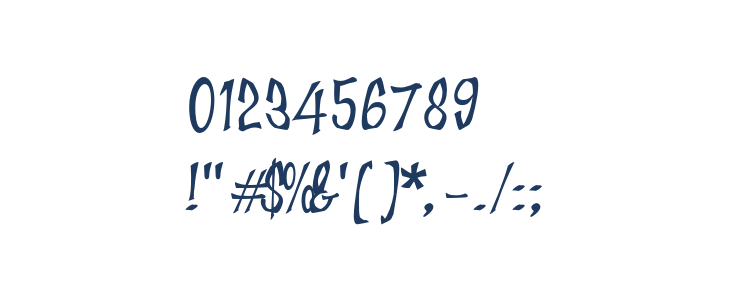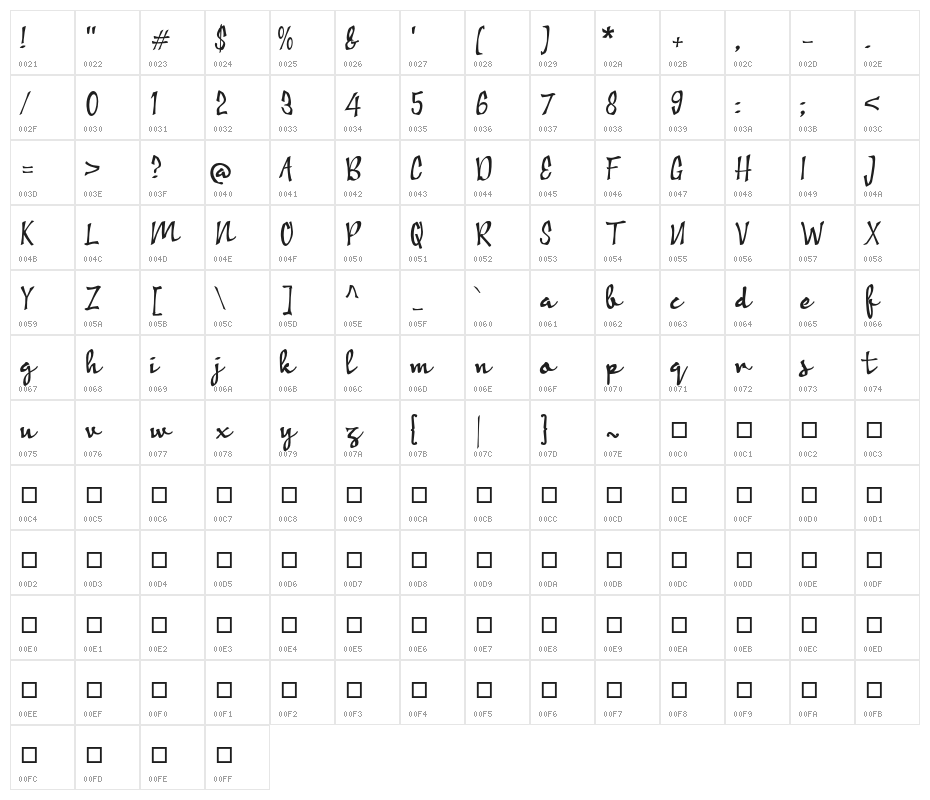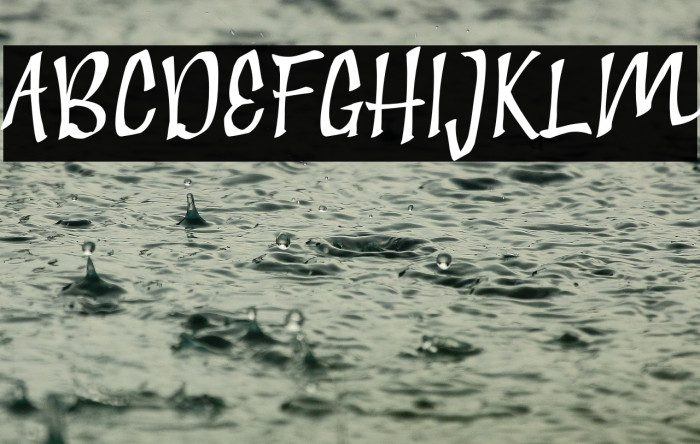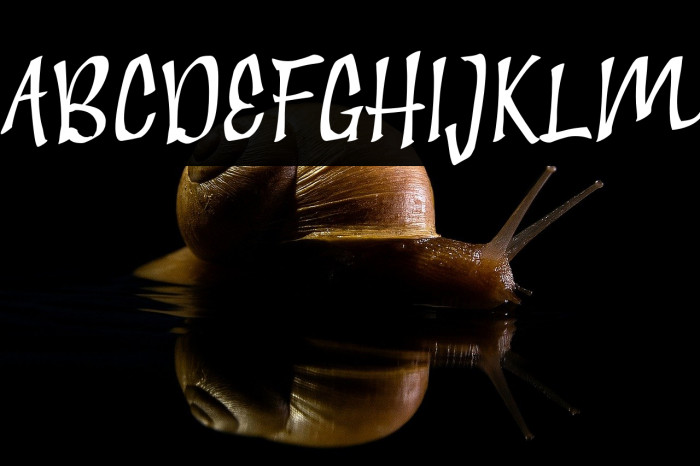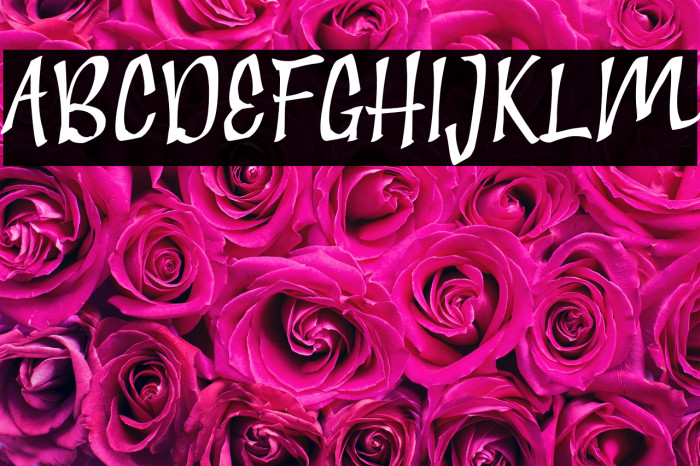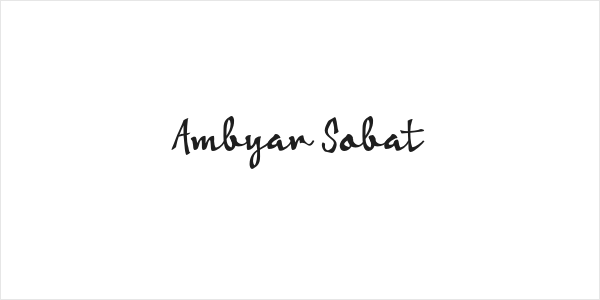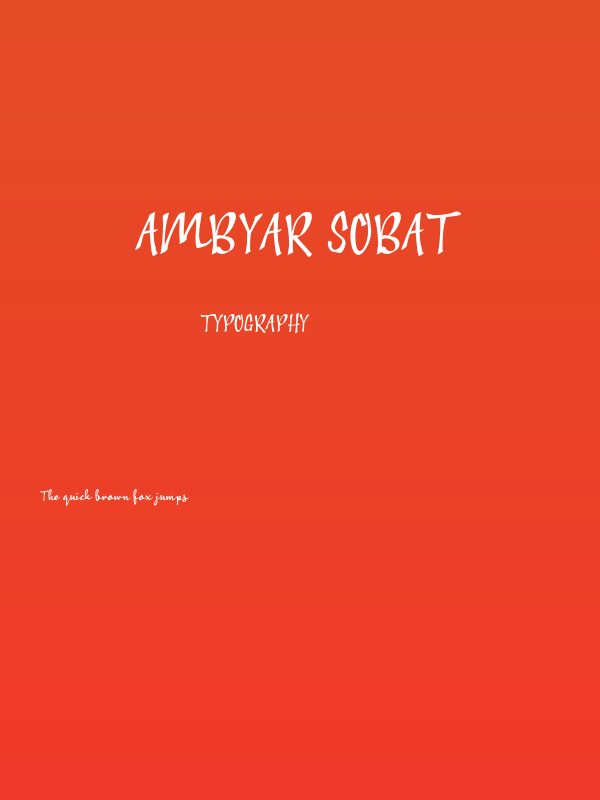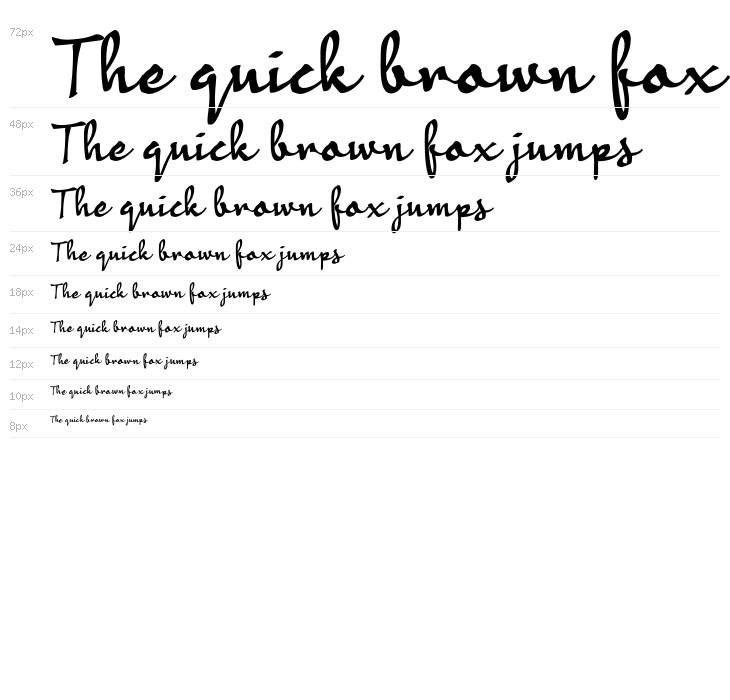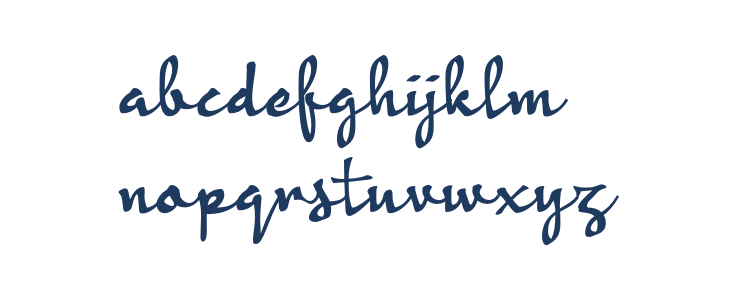
Ambyar Sobat Font
Ambyar Sobat Description
This font features a dynamic and expressive style, characterized by its handwritten appearance. The uppercase letters exhibit a bold and slightly irregular form, giving a sense of movement and energy. The lowercase letters maintain a fluid and cursive style, enhancing the handwritten feel. Numbers are consistent with the overall design, offering a playful yet legible look. Special characters are creatively integrated, adding to the font's versatility. The strokes vary in thickness, providing a moderate contrast that adds depth and interest to the text.
| Proposed Projects | Ideal for creative projects such as greeting cards, invitations, posters, and branding materials that require a personal touch. |